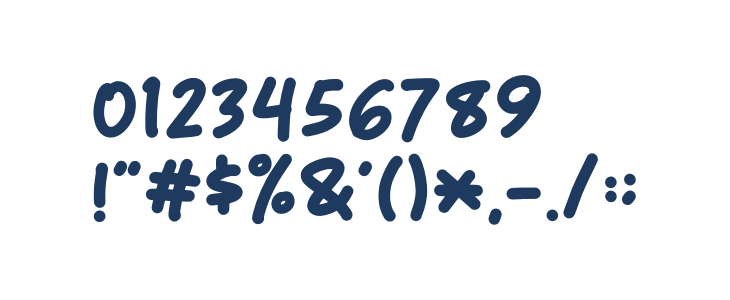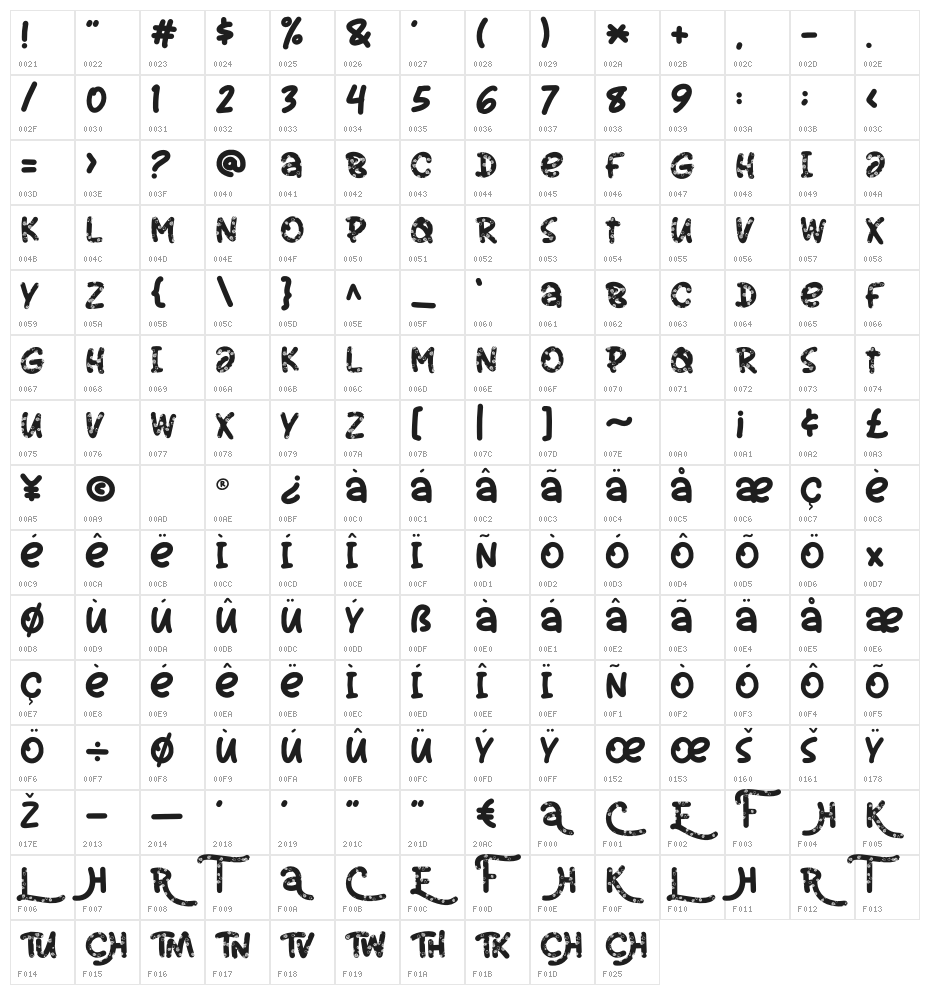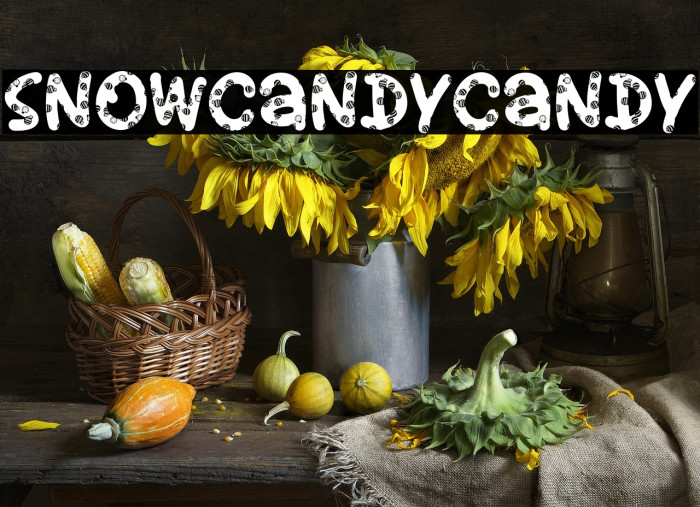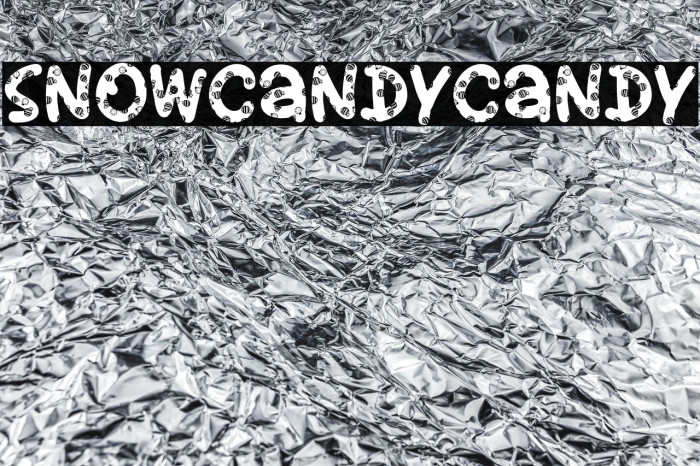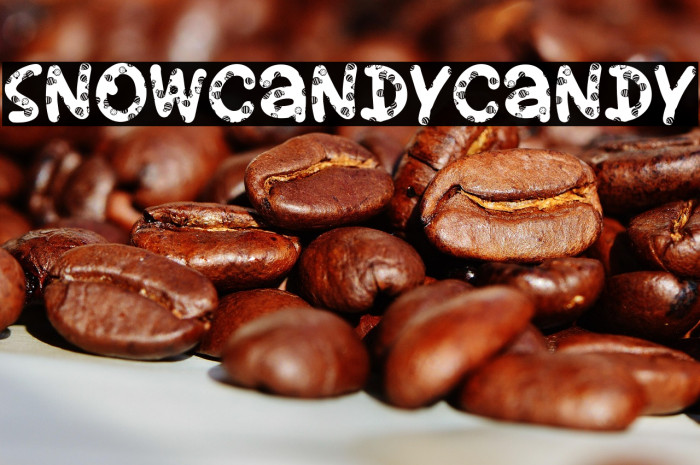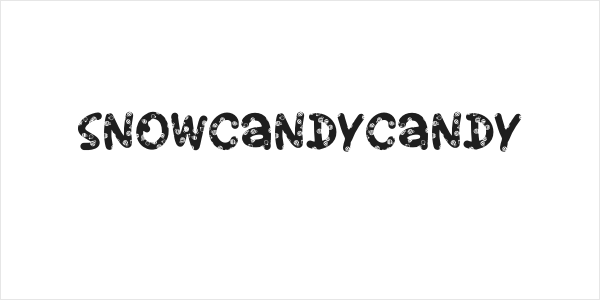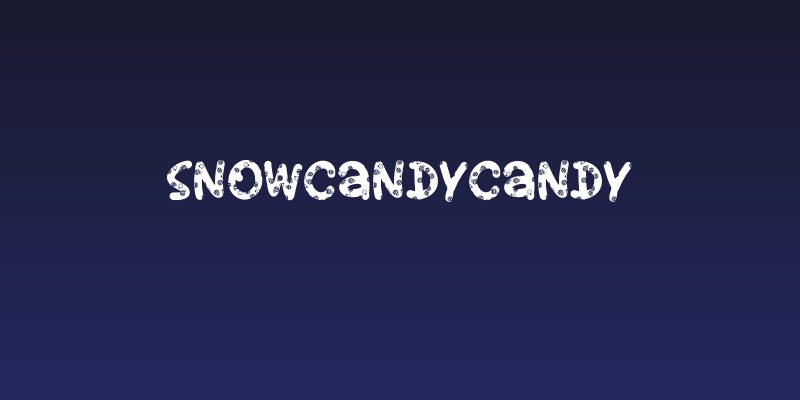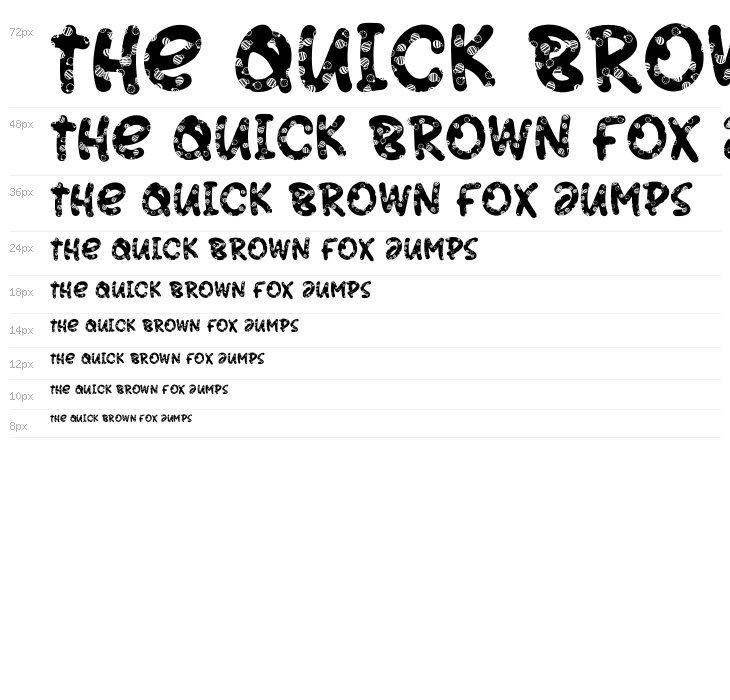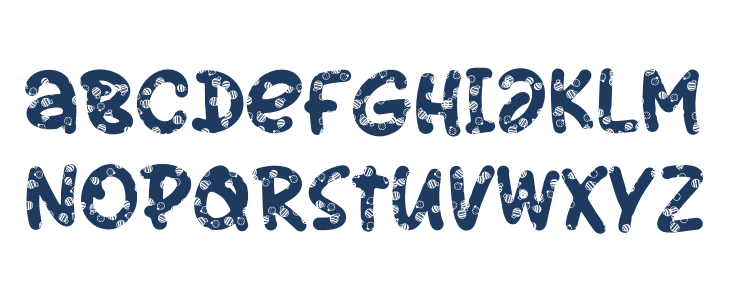
SnowCandyCandy Font
SnowCandyCandy Description
This playful and decorative font features a unique design with snowflake patterns embedded within each character, creating a whimsical and festive appearance. The letters are bold and rounded, with a consistent thickness that adds to the playful nature of the font. The uppercase and lowercase letters maintain a cohesive style, while the numbers and special characters are designed to match the overall theme. This font is perfect for holiday-themed projects or any design that requires a touch of fun and creativity.
| Proposed Projects | Ideal for holiday cards, festive posters, children's book covers, and playful branding materials. |